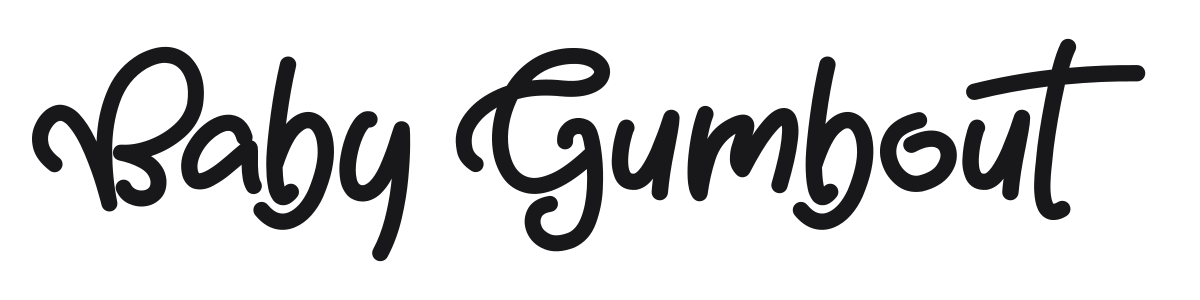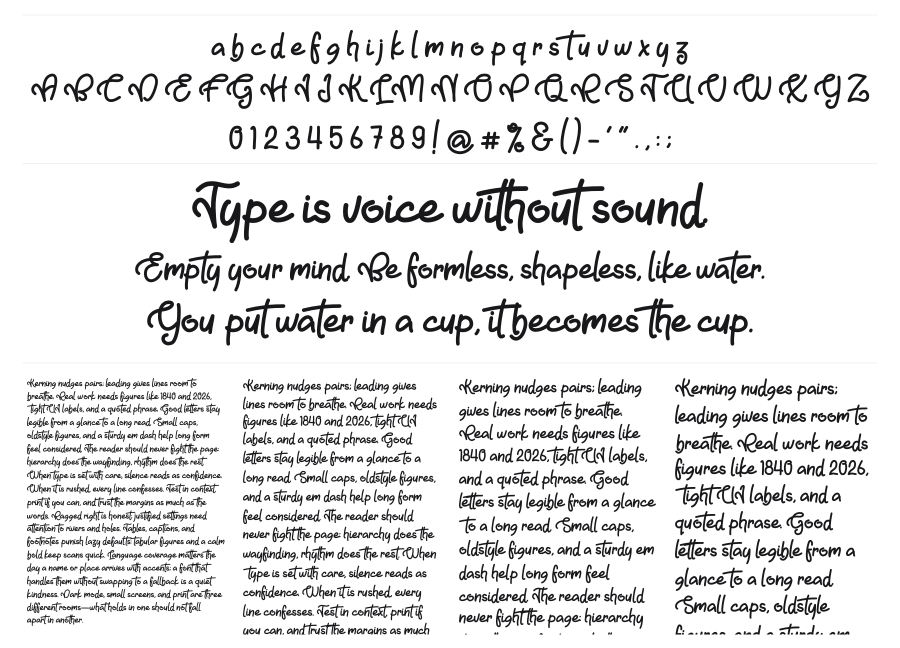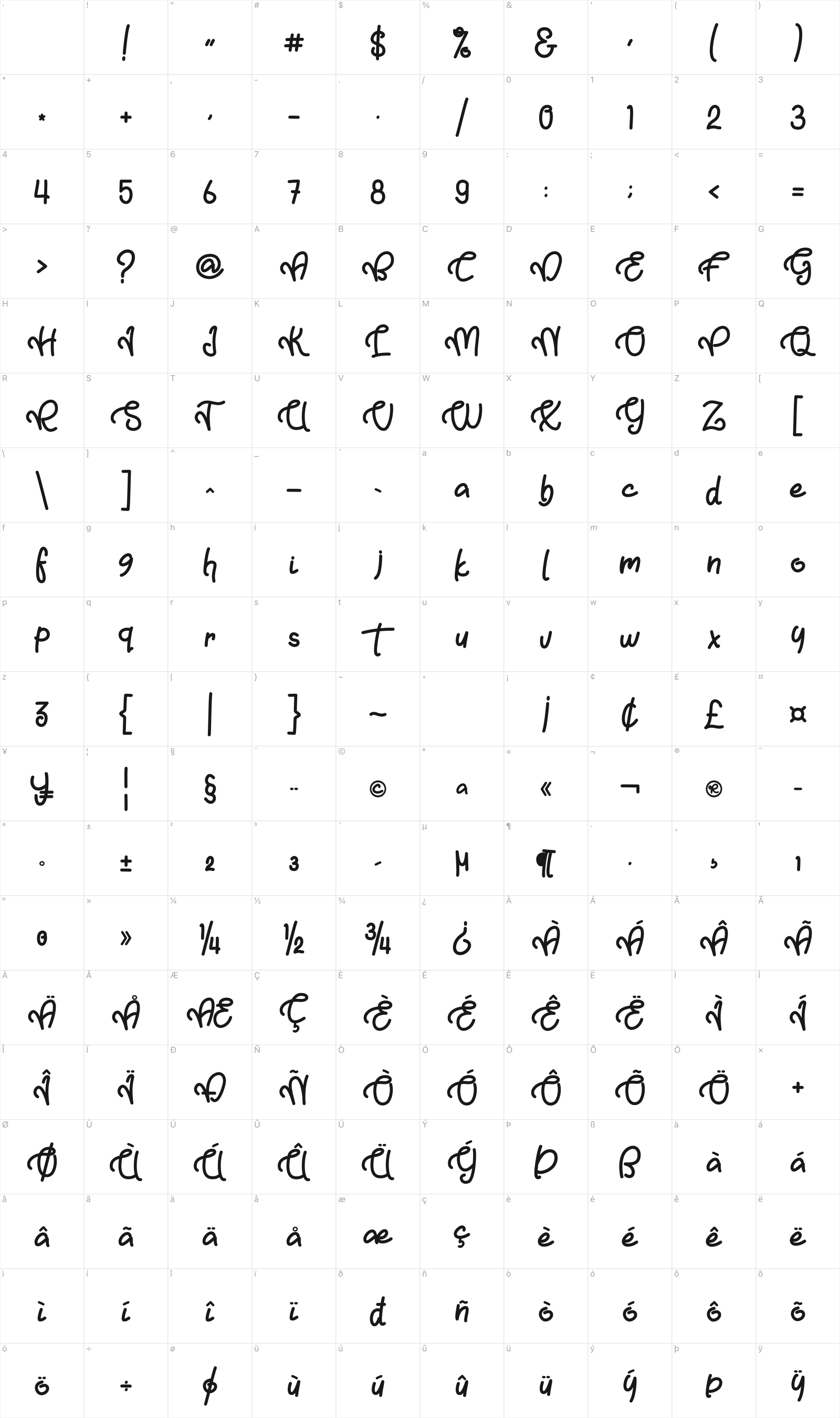
Baby Gumbout
Baby Gumbout is a bold casual script with thick, rounded strokes and a natural handwritten flow. The chunky, bubbly characters carry an infectious cheerfulness that works well for children's products, food packaging, and fun branding. Its weight and roundness make it pop at large sizes.